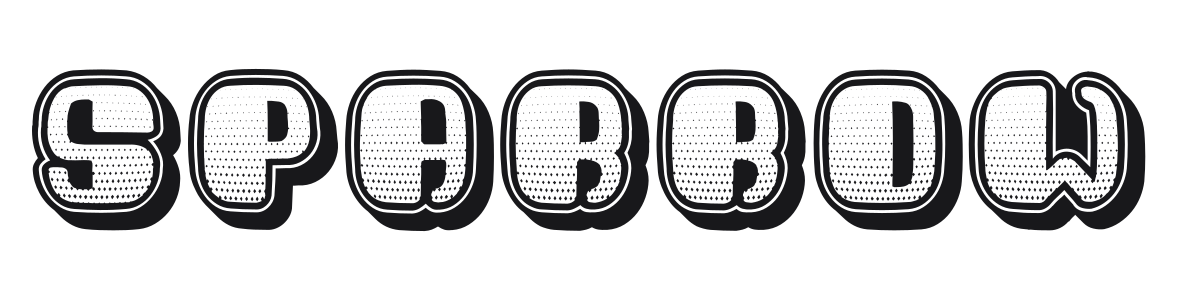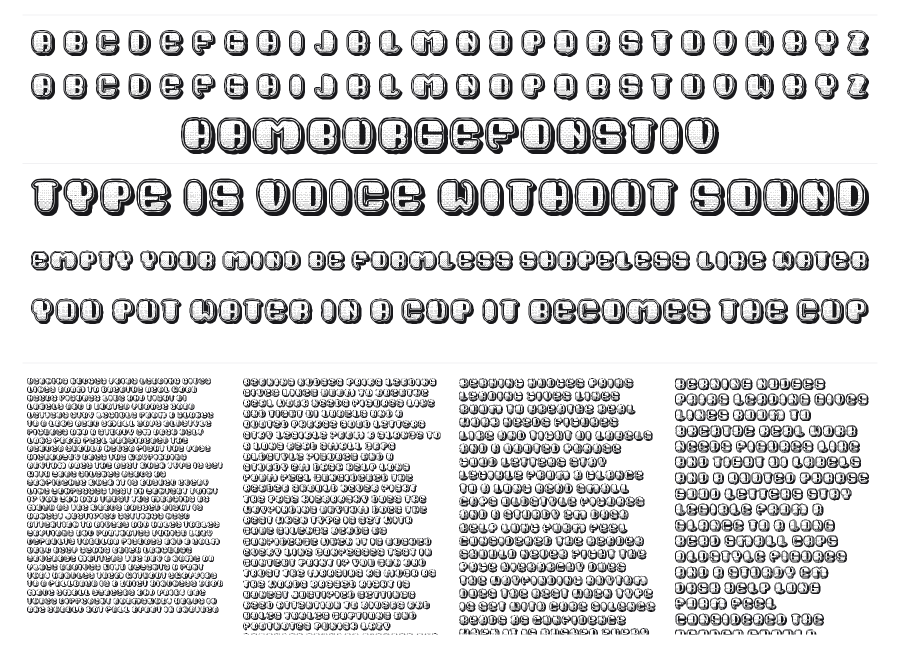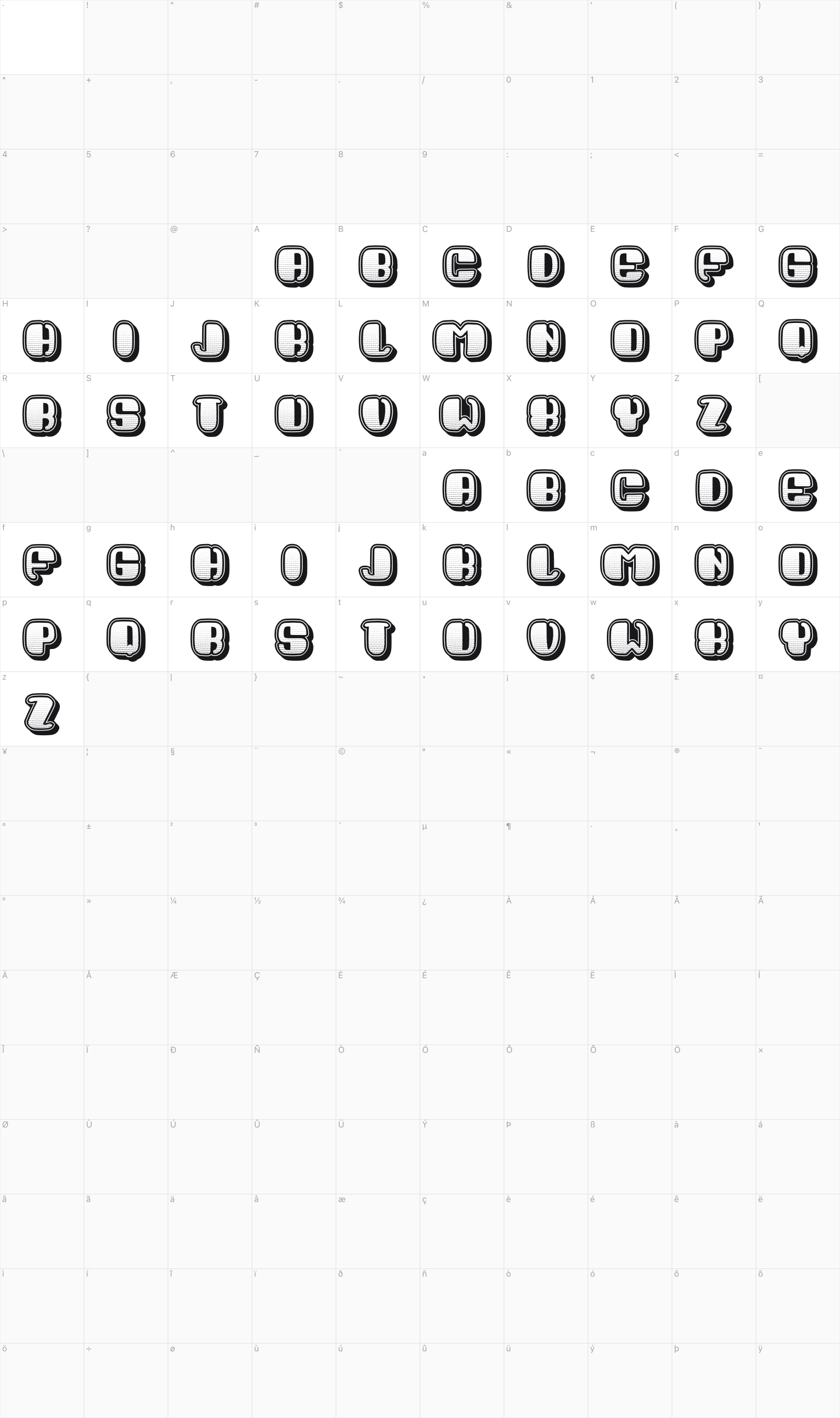
Sparrow
Sparrow is a chunky rounded display font with a bold 1970s bubble aesthetic and built-in halftone dot fill. Each character sits inside an inflated pill shape with a thick multi-layer drop shadow, creating immediate visual impact. It brings a retro pop-art energy to posters, packaging, and youth-oriented branding.